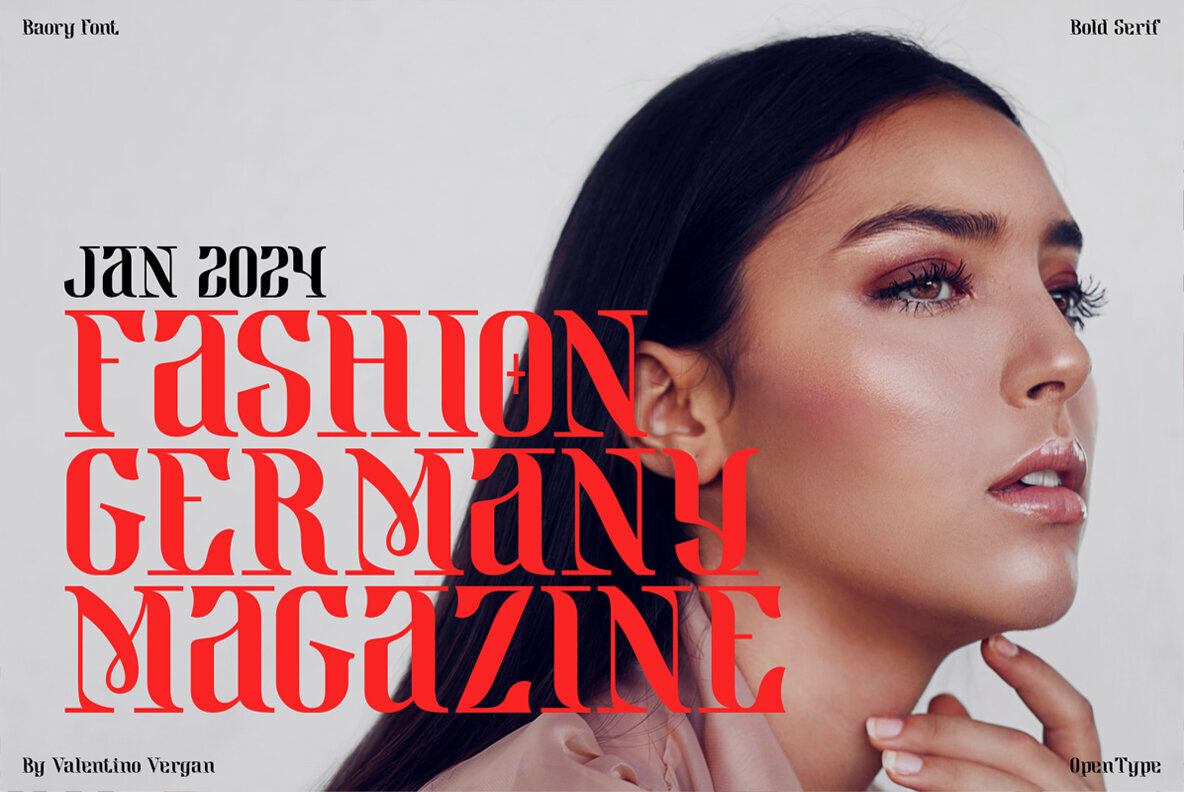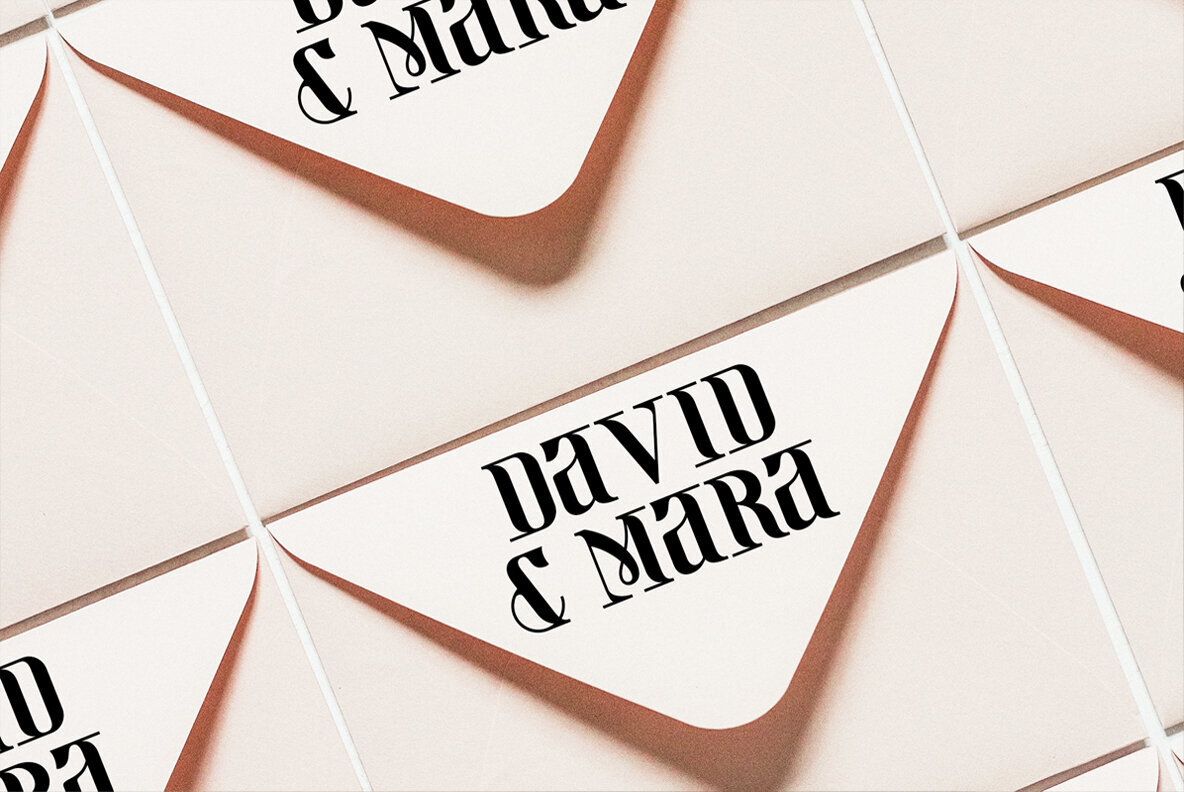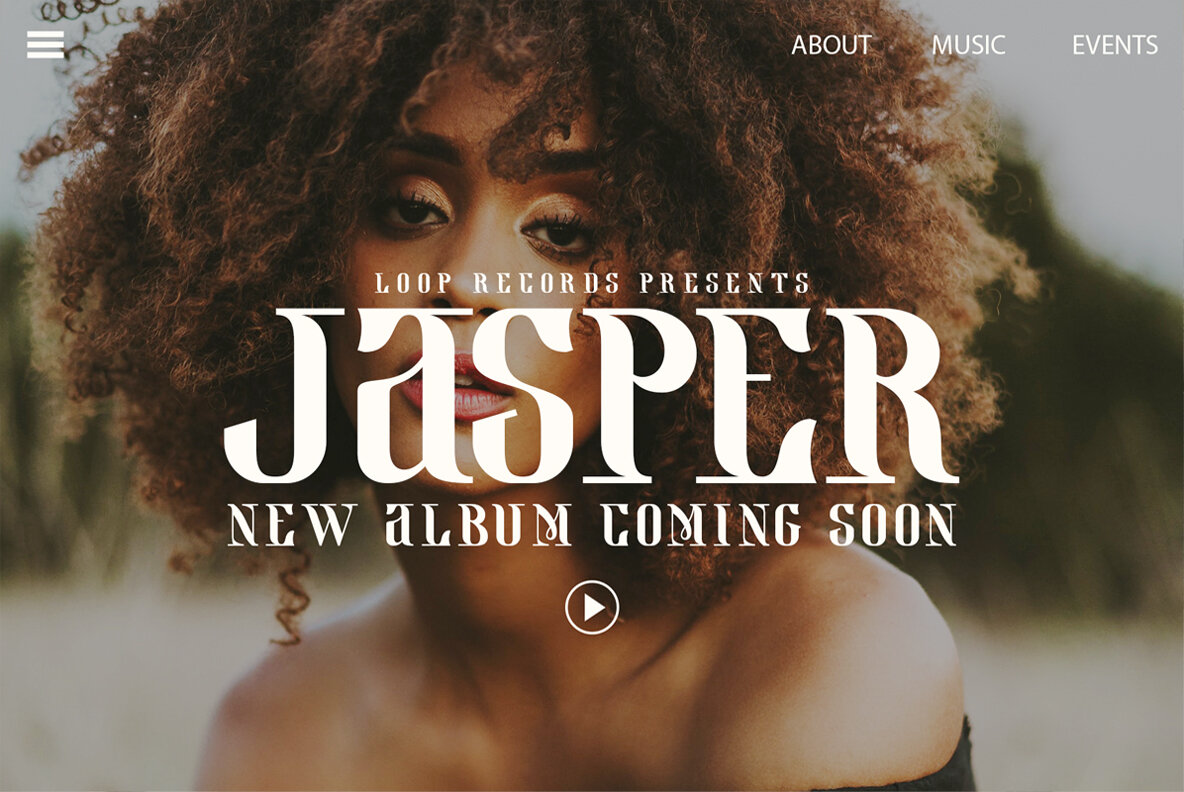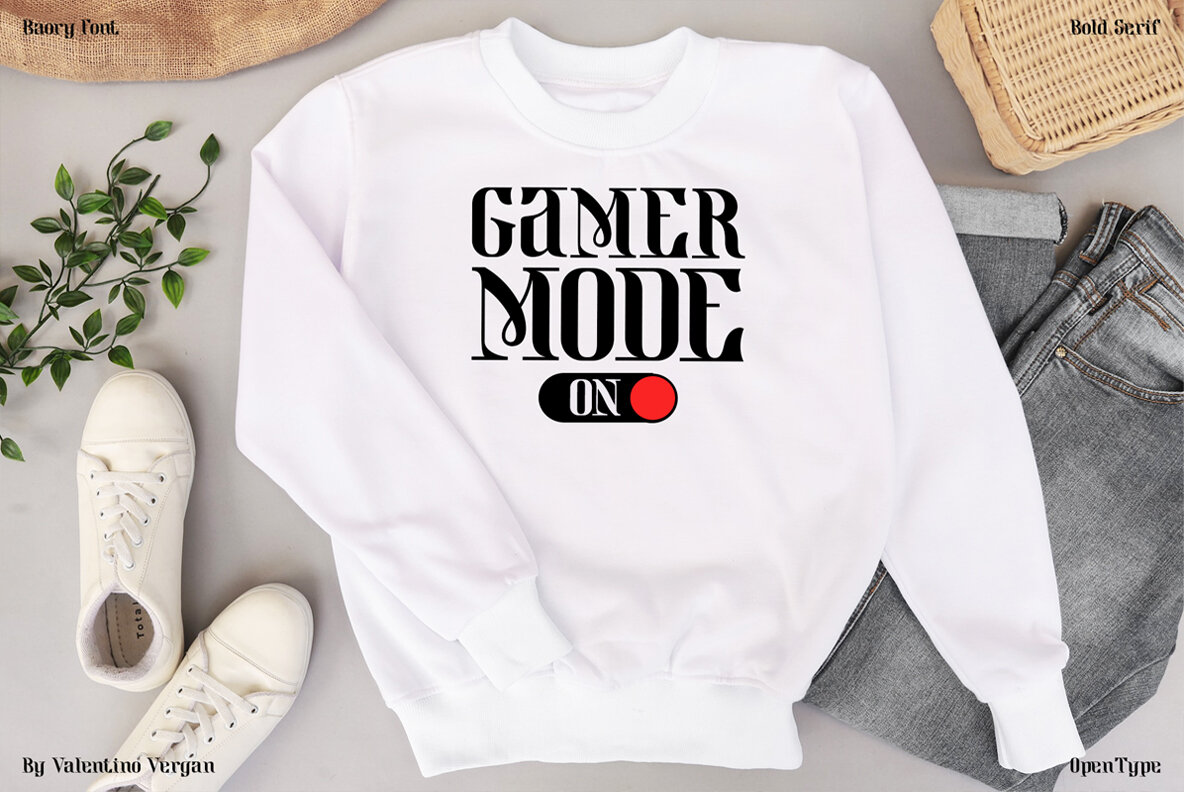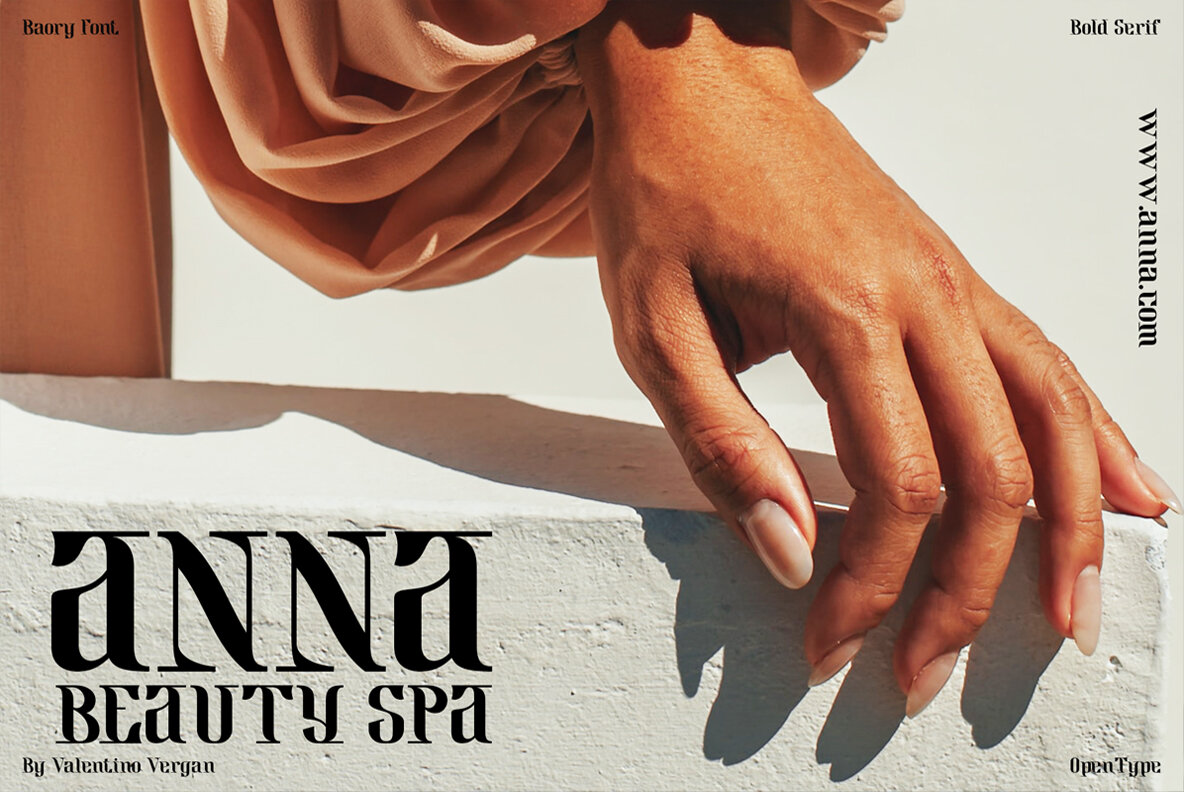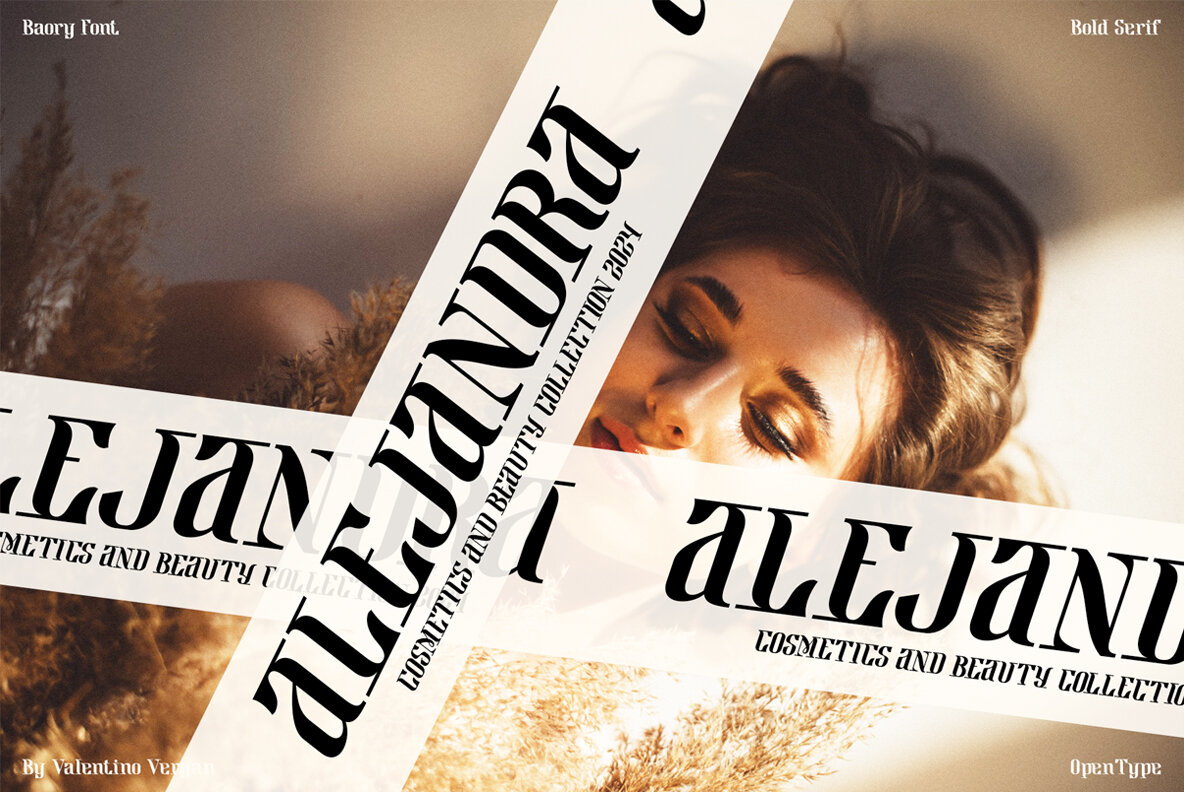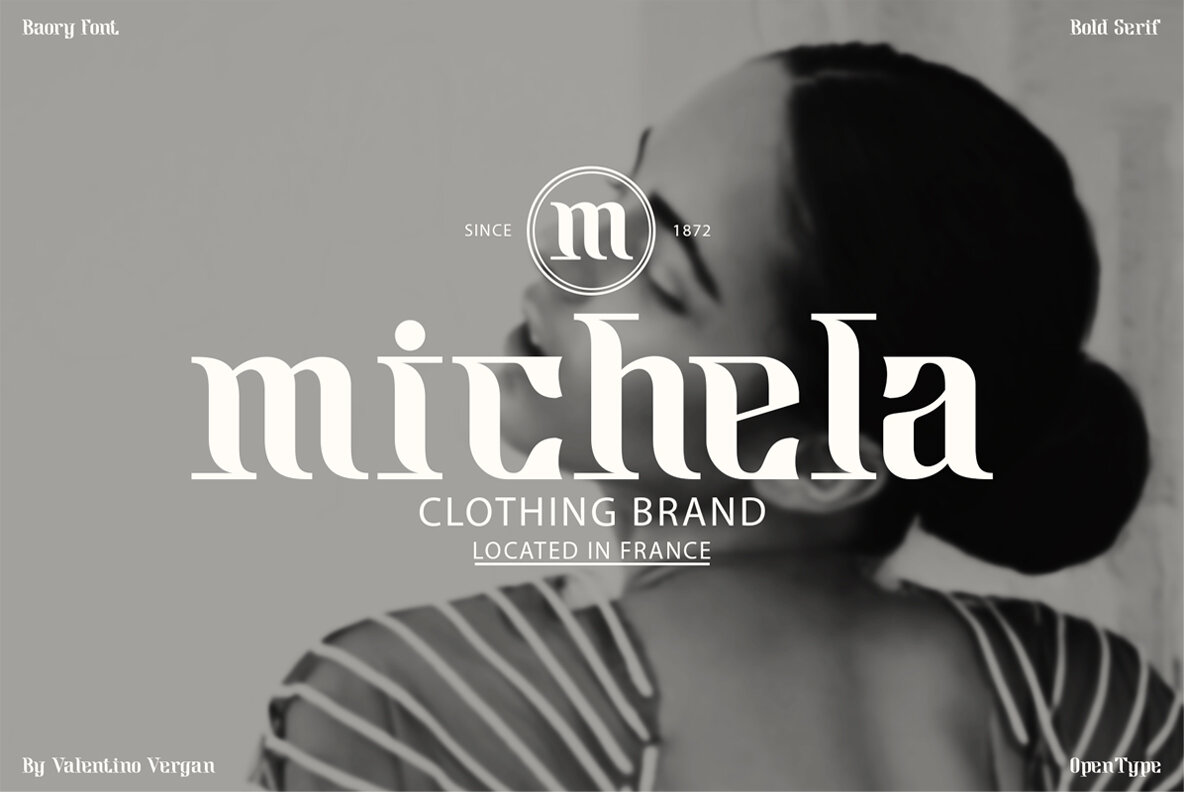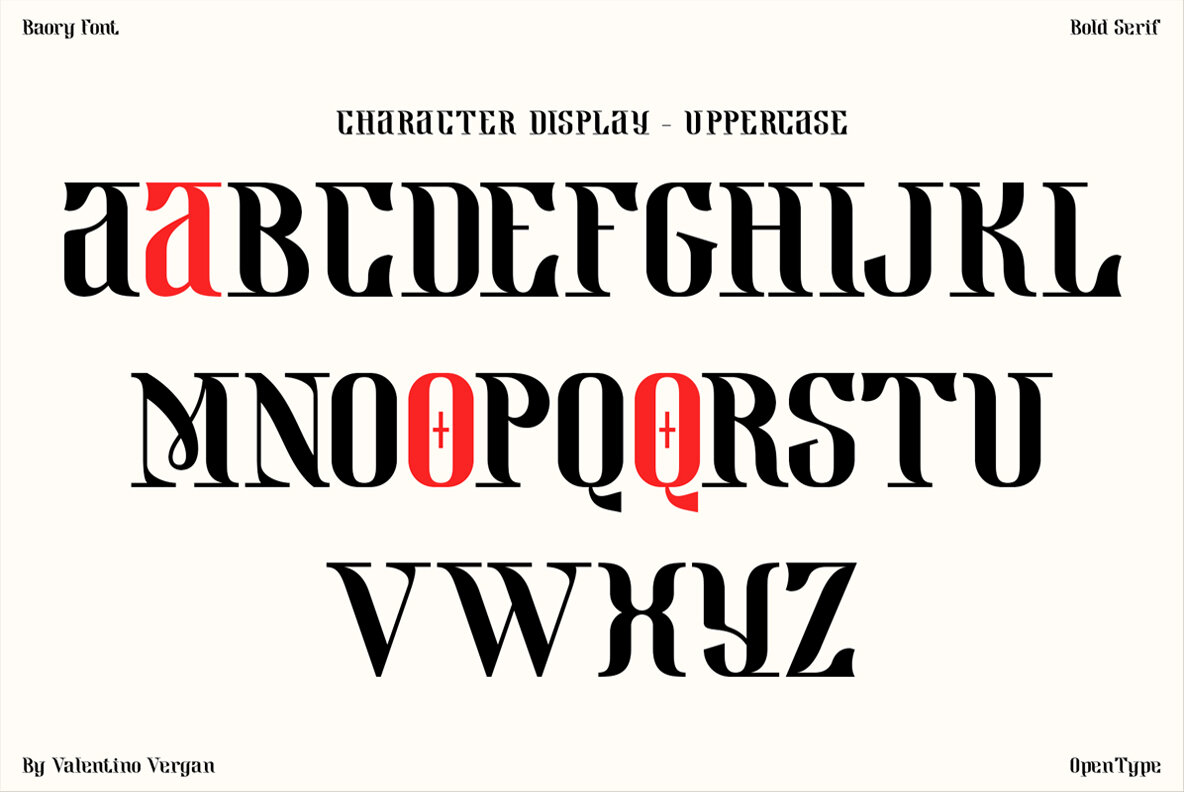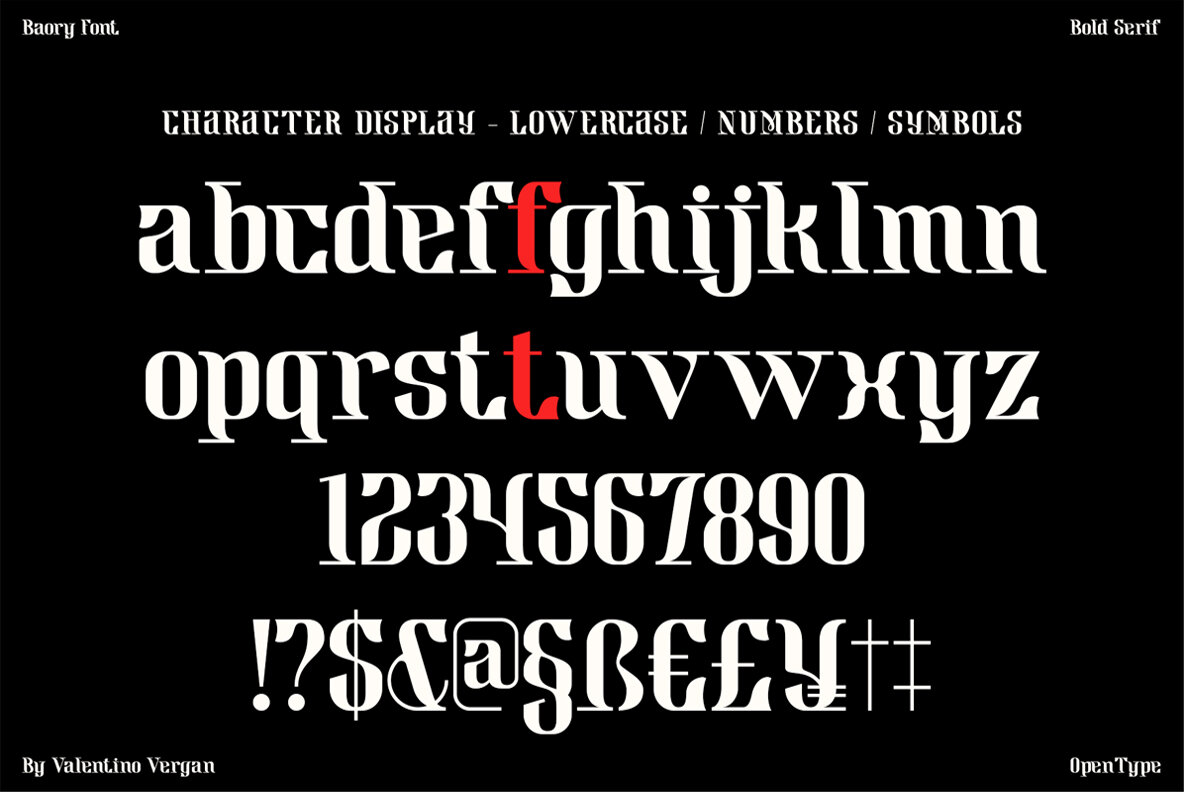
Baory is a bold modern gothic style serif, which is perfect for headlines and logos. The idea behind Baory was to create a bold serif with gothic elements, this combination creates a unique font that is eye-catching and creative. Baory is an ideal font for graphic designers and advertising agencies who are looking to create unique and interesting designs for their clients. Baory comes with great multilingual support.